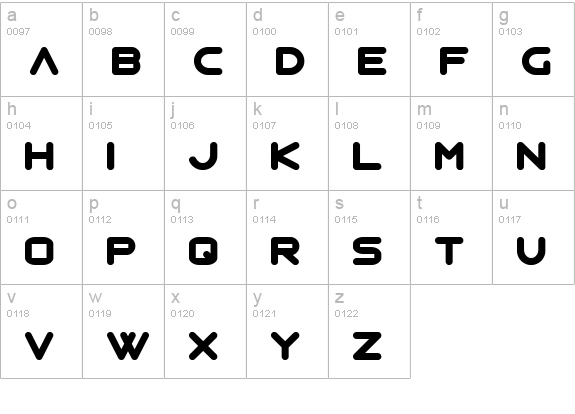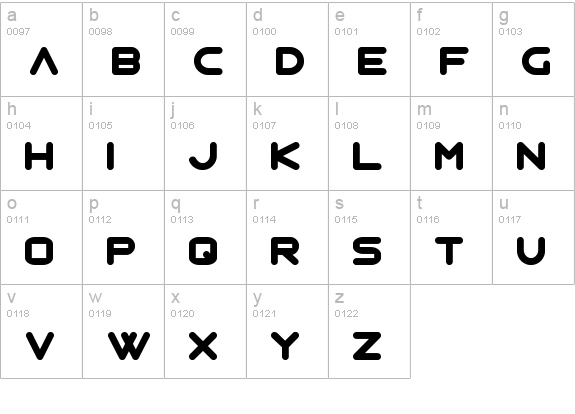
Zian Font Details
Introducing Zian, a bold and captivating font that combines elegance with a touch of modernity. With its clean lines and sophisticated curves, Zian effortlessly captures attention and adds a distinctive flair to any design project. Featuring a wide range of letterforms, Zian offers versatility and flexibility, making it suitable for various design applications. Whether you're creating a logo, designing a website, or crafting a stunning invitation, this font is sure to make a lasting impression. Zian's unique character lies in its ability to effortlessly blend both traditional and contemporary design elements. Its sleek and stylish appearance is complemented by its legibility, ensuring that your message is conveyed with clarity and impact. One of the most appealing aspects of Zian is that it is available for free. Yes, you read that right! Zian can be freely downloaded at FontsMarket.com, allowing you to enhance your designs without any cost. This accessibility makes Zian a valuable asset for both professional designers and aspiring creatives alike. Whether you're looking to elevate your brand, add a touch of elegance to your projects, or simply explore the world of typography, Zian is the perfect choice. So why wait? Unlock the boundless possibilities of this remarkable font and let your creativity soar. Download Zian today at FontsMarket.com and embark on a design journey like no other.